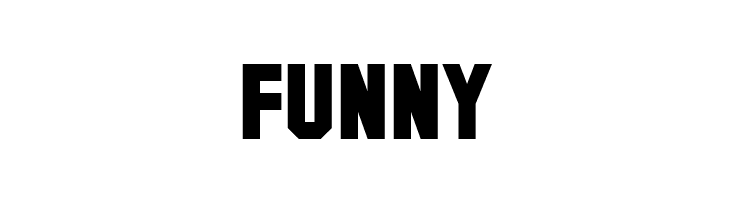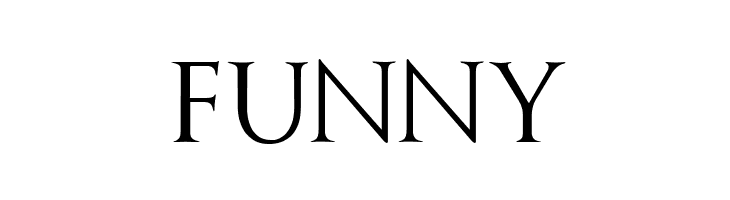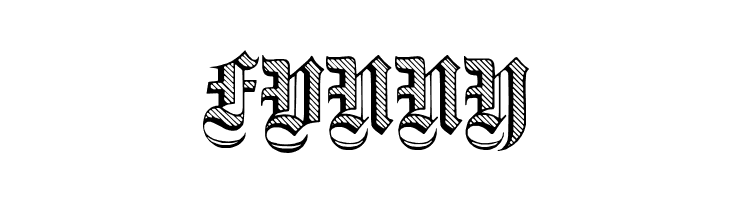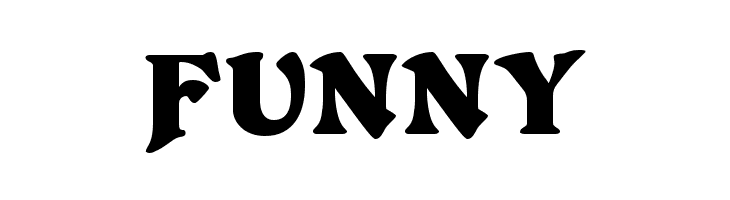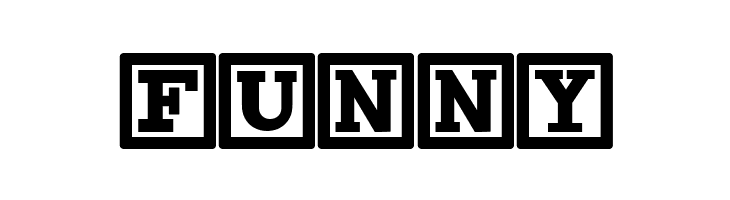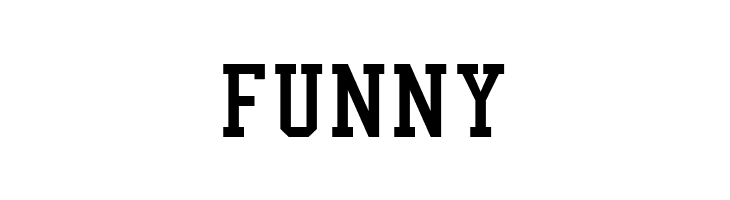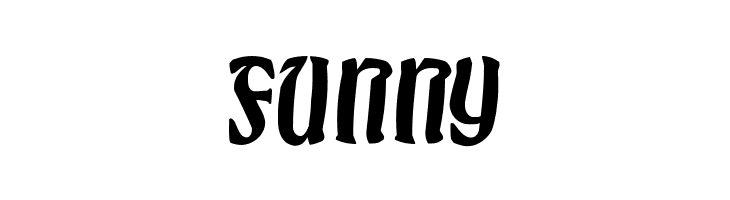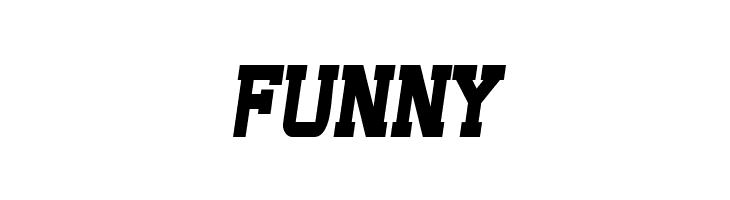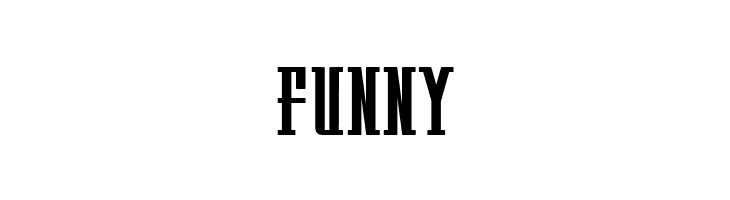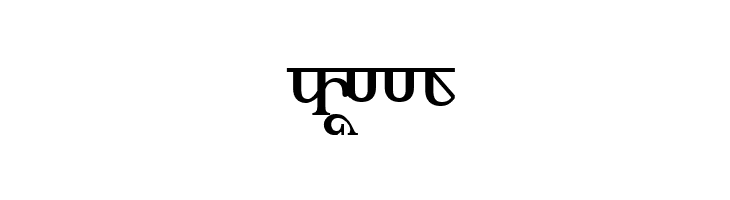
A bold, serifed font with a modern, industrial feel and strong geometric shapes.
A bold, medieval-inspired font with sharp serifs and dramatic strokes.
A bold serif font with dramatic, angular serifs and a vintage-modern appeal.
Bold, geometric font with a collegiate style and strong, angular lines.
A bold, geometric font with strong, wide letterforms and a modern aesthetic.
A bold, blackletter-style font with intricate and ornate detailing.
A bold, heavy serif font with a classic and authoritative style.
A bold serif font with sharp serifs and a commanding presence.
A bold serif font with Roman-inspired elegance and high contrast.
A bold, shadowed font with a vintage yet modern aesthetic.
A bold, italicized serif font with strong, dynamic strokes.
A bold serif font with strong strokes and classic appeal.
A bold, collegiate-style font with strong, blocky characters and a solid presence.
A classic serif font inspired by Roman inscriptions, exuding elegance and authority.
A bold, intricate Blackletter style with a gothic and historical appeal.
A bold, dramatic font with a medieval flair and strong, thick strokes.
A bold, blocky font with uppercase letters enclosed in square borders, ideal for impactful designs.
A bold, semi-condensed serif font with a strong, authoritative presence.
A bold, collegiate-style font with strong, block-like characters.
A bold, blackletter-inspired font with dramatic, angular strokes.
A bold, condensed font with sharp, angular edges and a dynamic slant.
A bold, classic serif font with strong strokes and medium contrast.